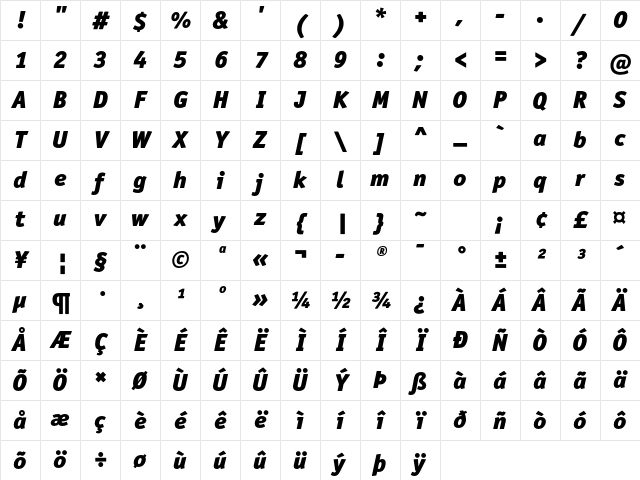
OfficinaSansITCStd BlackItalic
Style: BlackItalic
Designer: Erik Spiekermann and Ole Schaefer
Design Context for OfficinaSansITCStd
OfficinaSansITCStd is a composed and adaptable typeface that performs quietly and consistently across a wide range of design contexts. The slanted form adds forward momentum and visual energy.
Pro Tip: Use OfficinaSansITCStd for emphasis, pull quotes, and subheadings where its slanted energy can add rhythm to the layout.